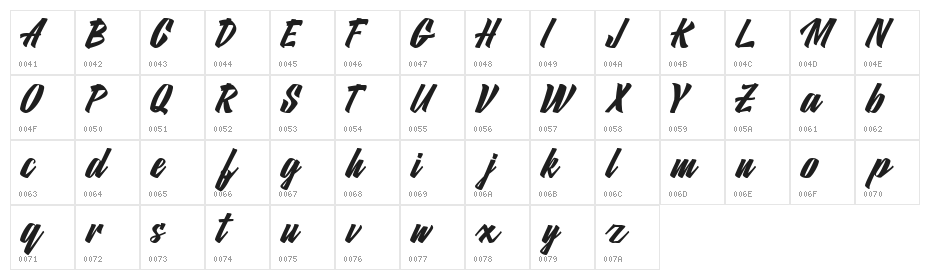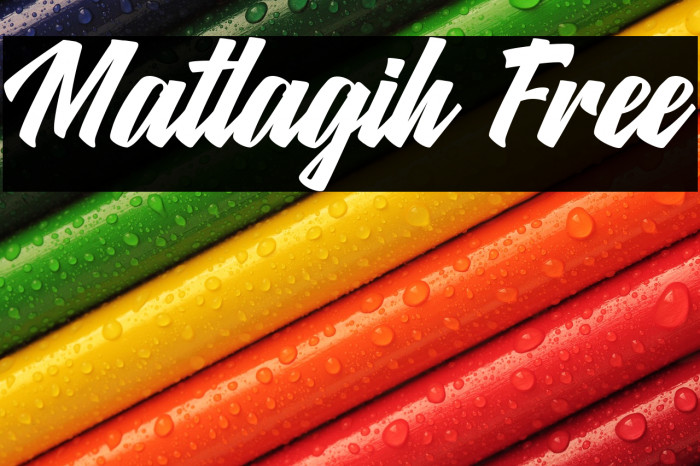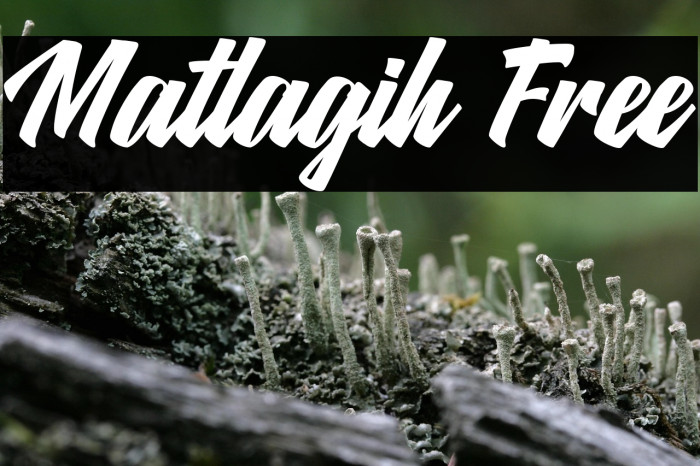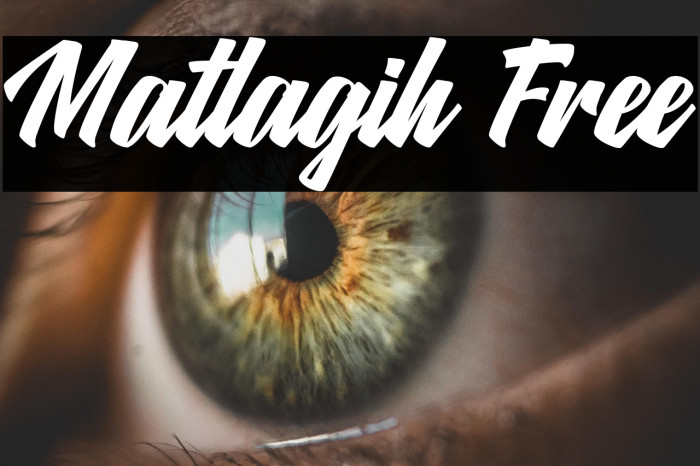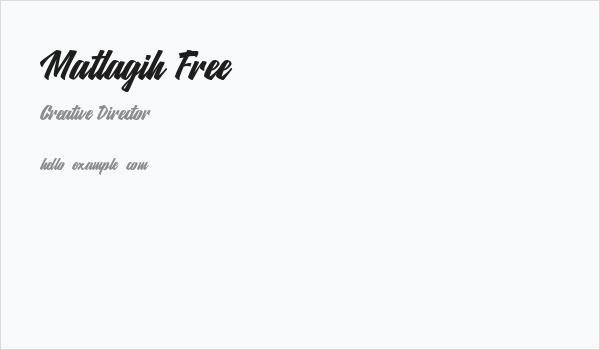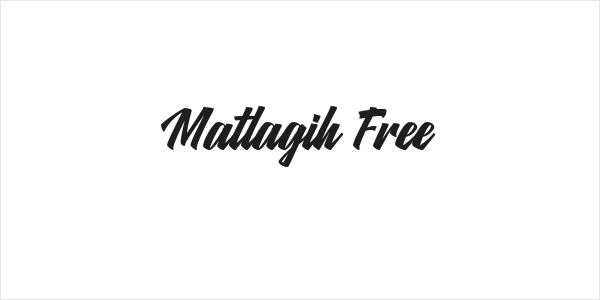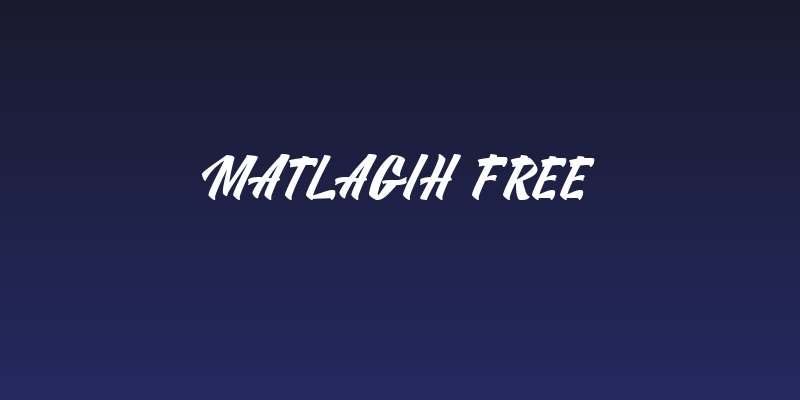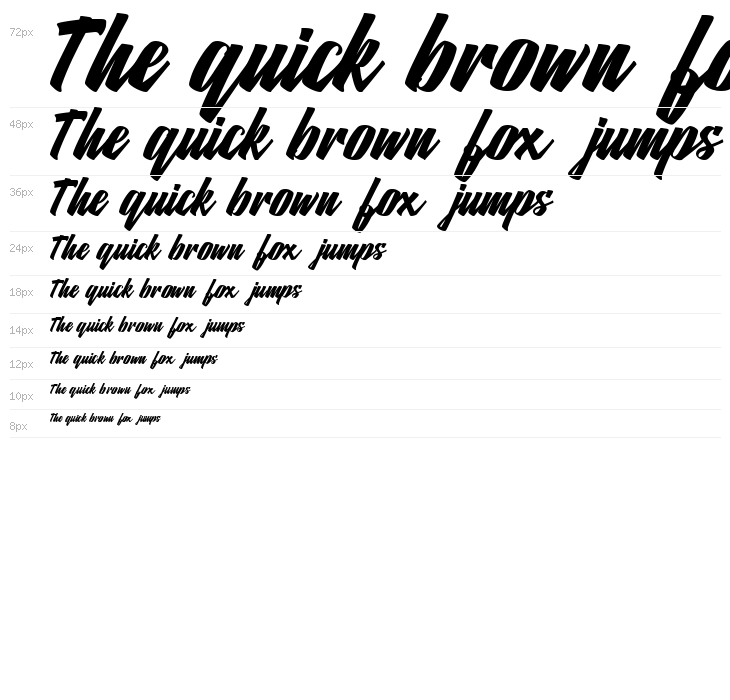
Matlagih Free Font
Matlagih Free Description
This font features a bold and dynamic script style with a strong presence. The letters are designed with a slight slant, giving them an energetic and fluid appearance. The strokes are thick and consistent, providing a sense of strength and confidence. The uppercase and lowercase letters are well-balanced, with smooth curves and sharp edges that create a striking visual impact. The font's design is reminiscent of brush lettering, making it ideal for projects that require a personal and artistic touch.